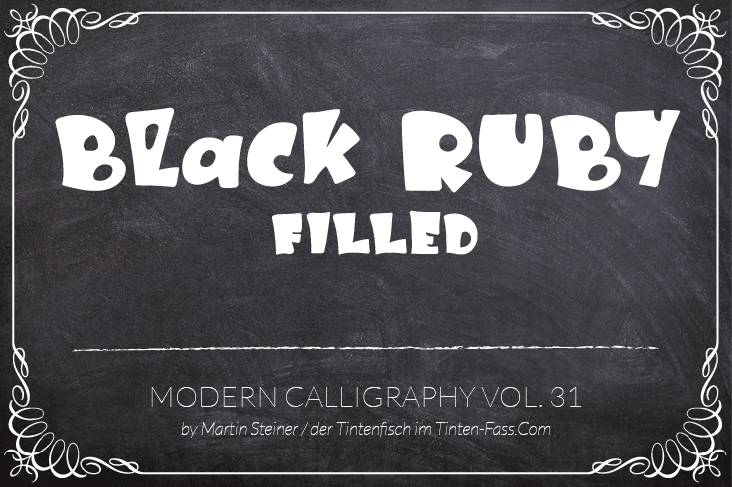
Preview and download Black Ruby Font. Created by Martin Steiner in Fancy Cartoon styles with Demo license.
Hello, and thank you for downloading this font. This version is free for PERSONAL USE ONLY! I want to introduce Black-Ruby-Filled Font: This font suitable for your design project especially for branding packaging, lettering and others. Premium Product Include: - Black-Ruby-Lined font - Black-Ruby-Filled font - multilingual letters (german, french, hispanic, italian, ...) - helpfile - commercial license Link for premium purchase - Etsy Market = https://www.etsy.com/de/listing/718708769 - My Official Store = https://www.tinten-fass.com/produkt/black-ruby-schriftart-fuer-geburtstag-hochzeit-kinderfest (special Price) Have fun! |